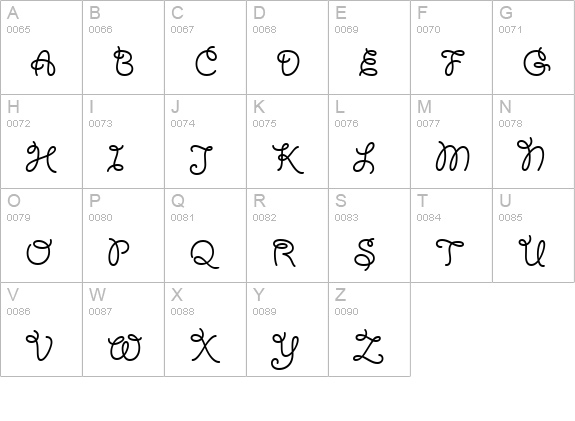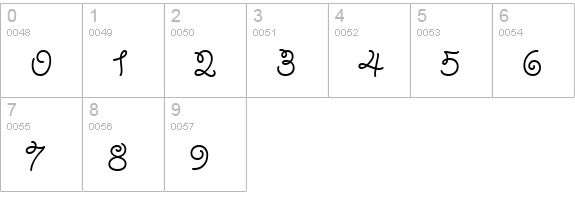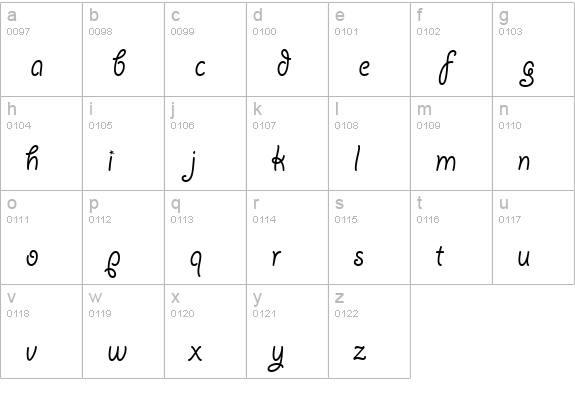
Giddyup Web Pro Font Details
Giddyup Web Pro is a charming and versatile font that brings a playful and whimsical touch to any design project. With its unique handwritten style and quirky details, this font is perfect for adding a fun and friendly vibe to websites, social media graphics, branding materials, and more. Giddyup Web Pro is designed to be easy to read while still maintaining a sense of creativity and personality. Best of all, Giddyup Web Pro is available for free download at FontsMarket.com. Whether you're a designer looking to add a touch of playfulness to your projects or a business owner wanting to stand out with a unique font choice, Giddyup Web Pro is the perfect choice. Download it today and let your creativity run wild with this delightful and freely available font!